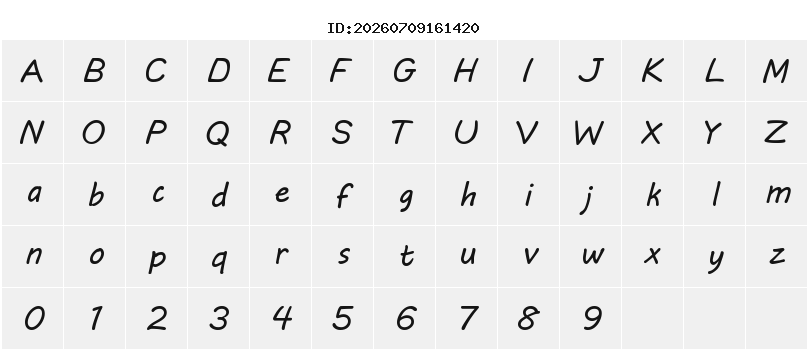
DLE Comic Lowercase Preview
About DLE Comic Lowercase.ttf
DLE Comic Lowercase.ttf is a modern, elegant sans-serif font designed for ultimate readability and visual harmony. Perfect for branding, headlines, web design, and print materials.